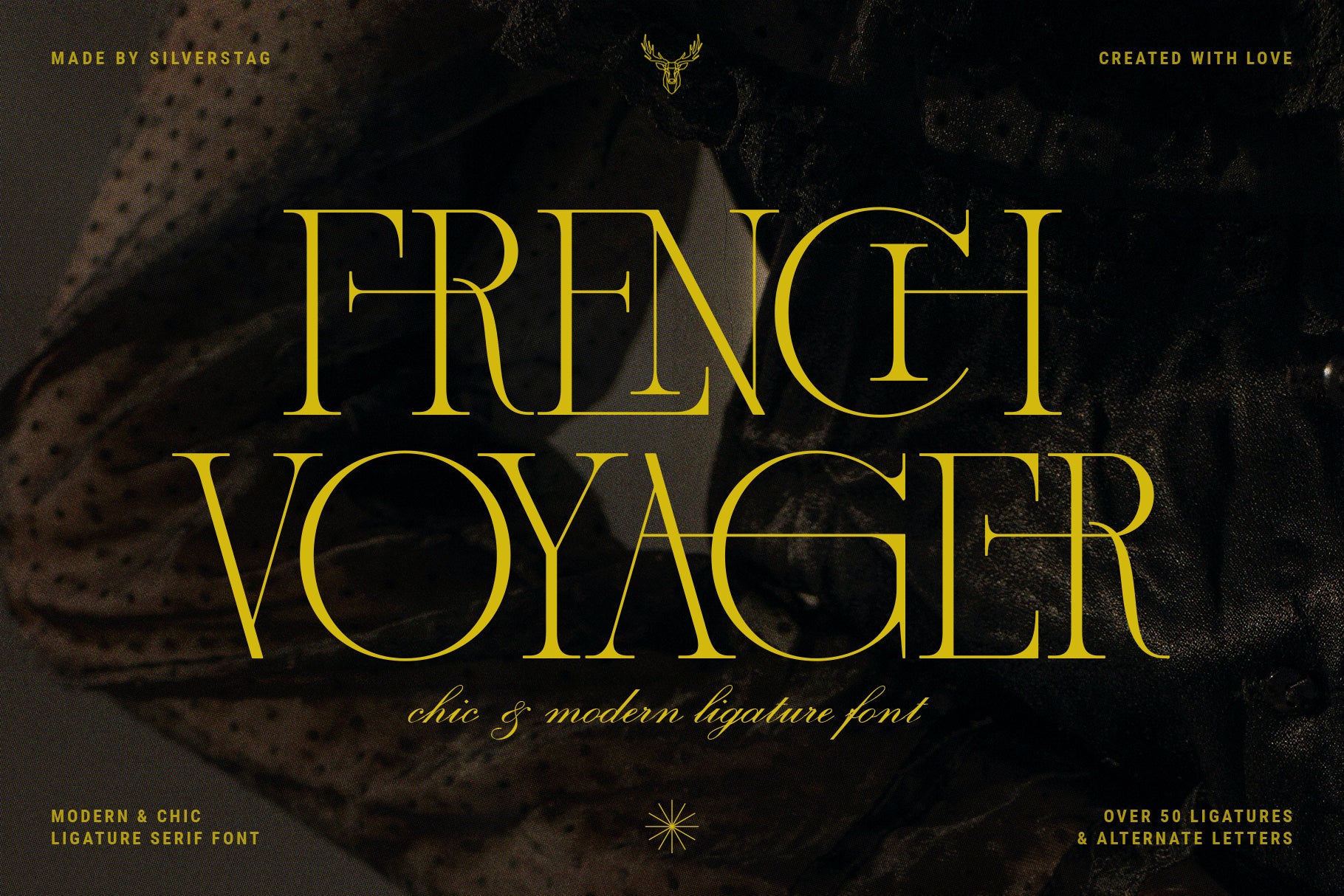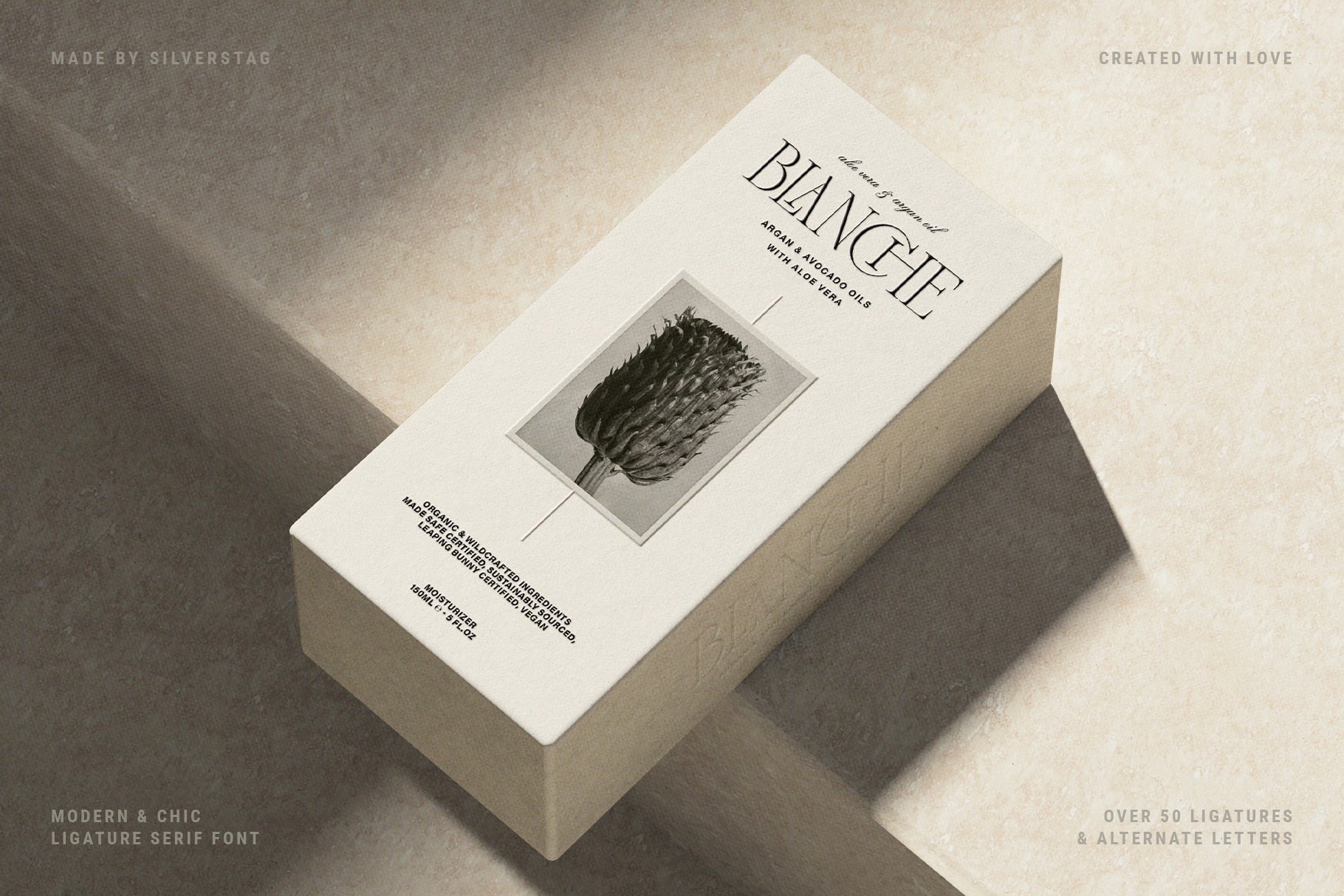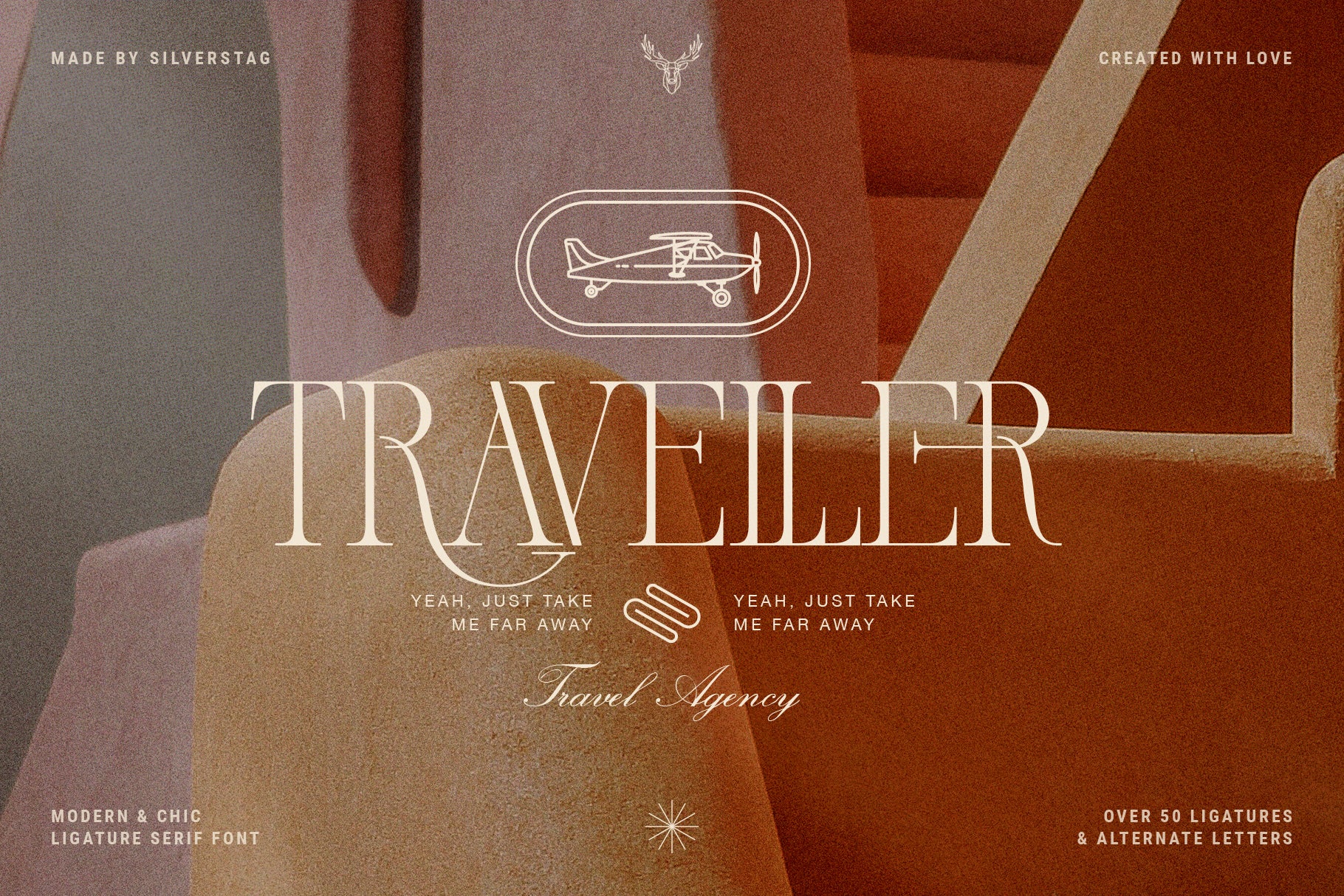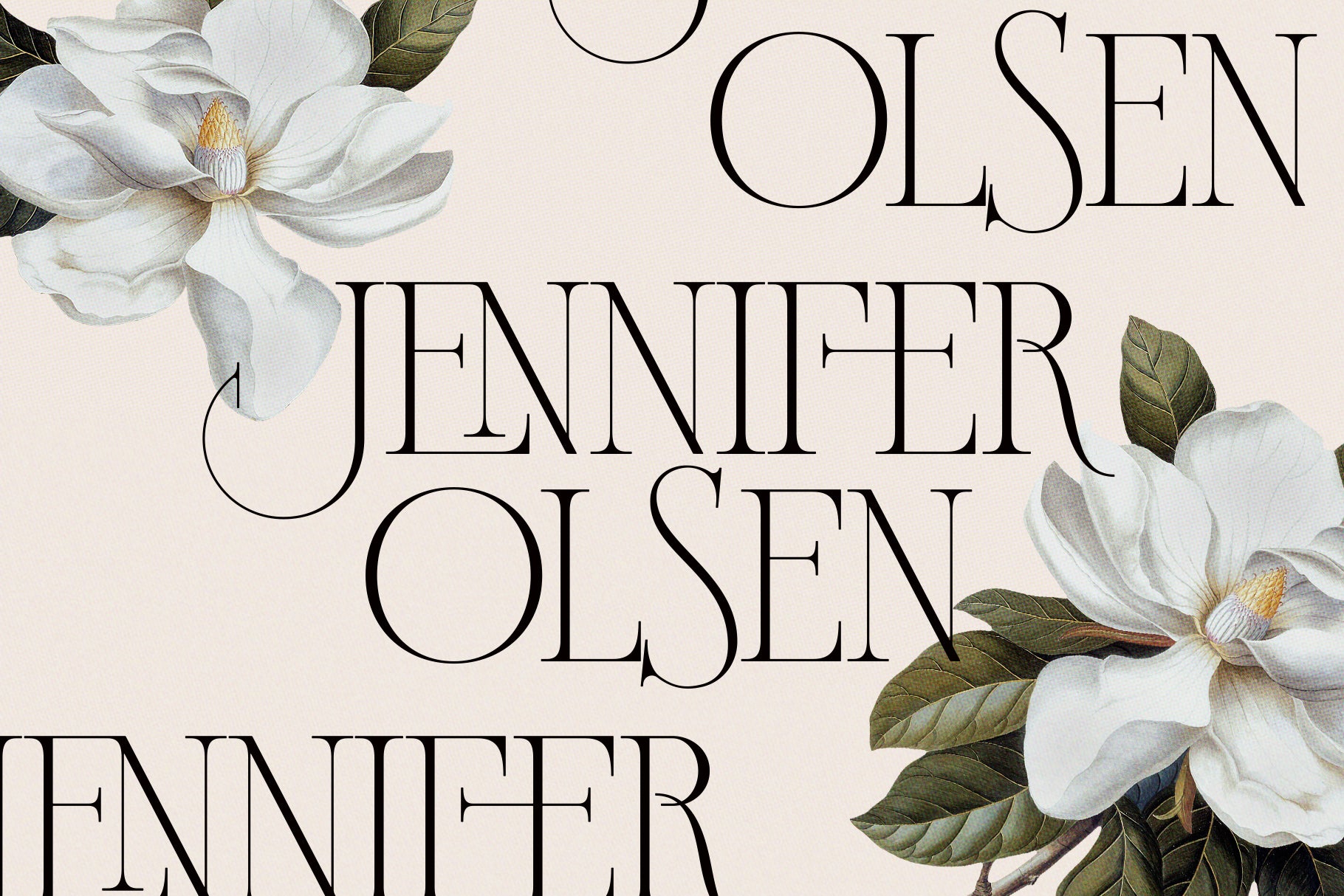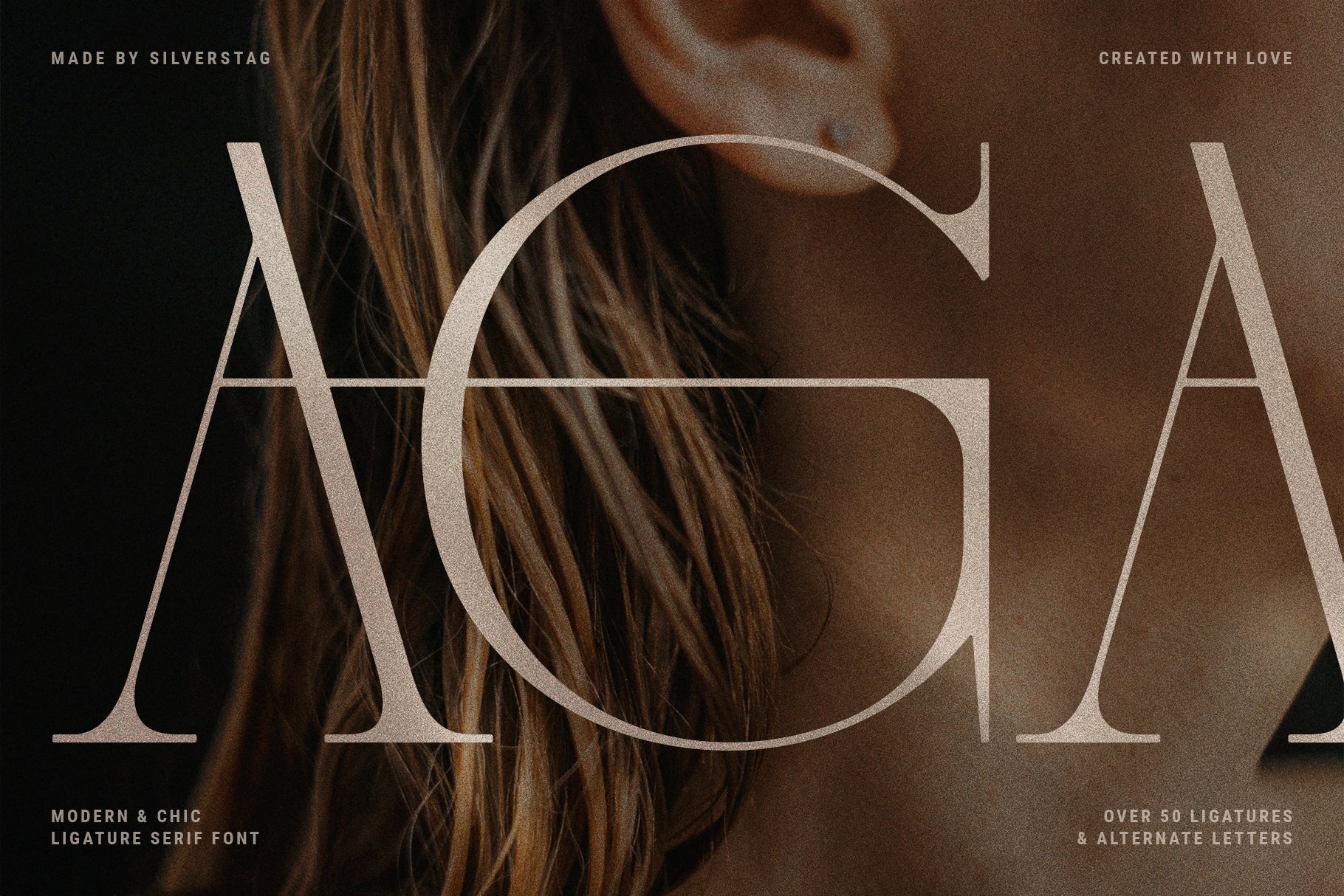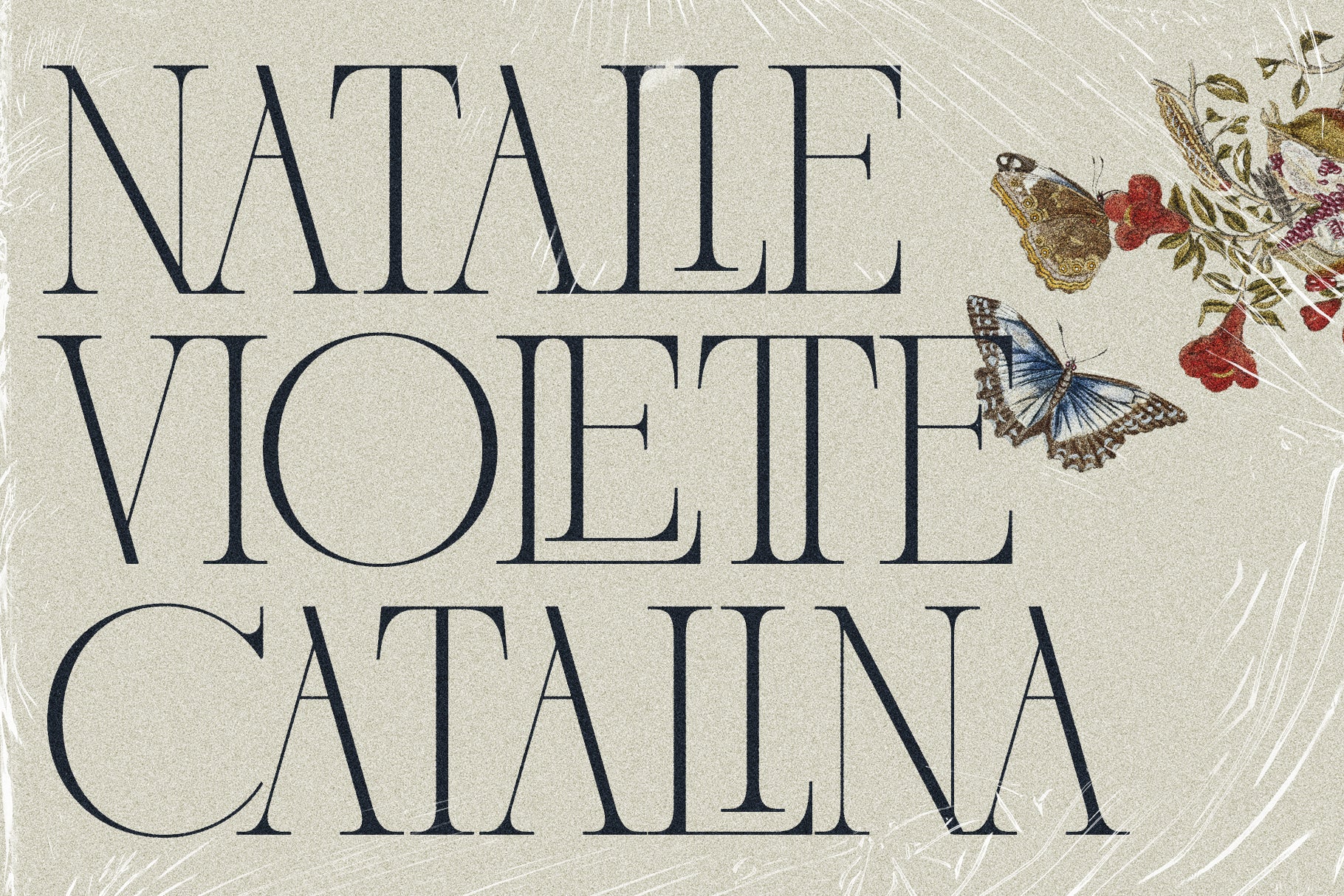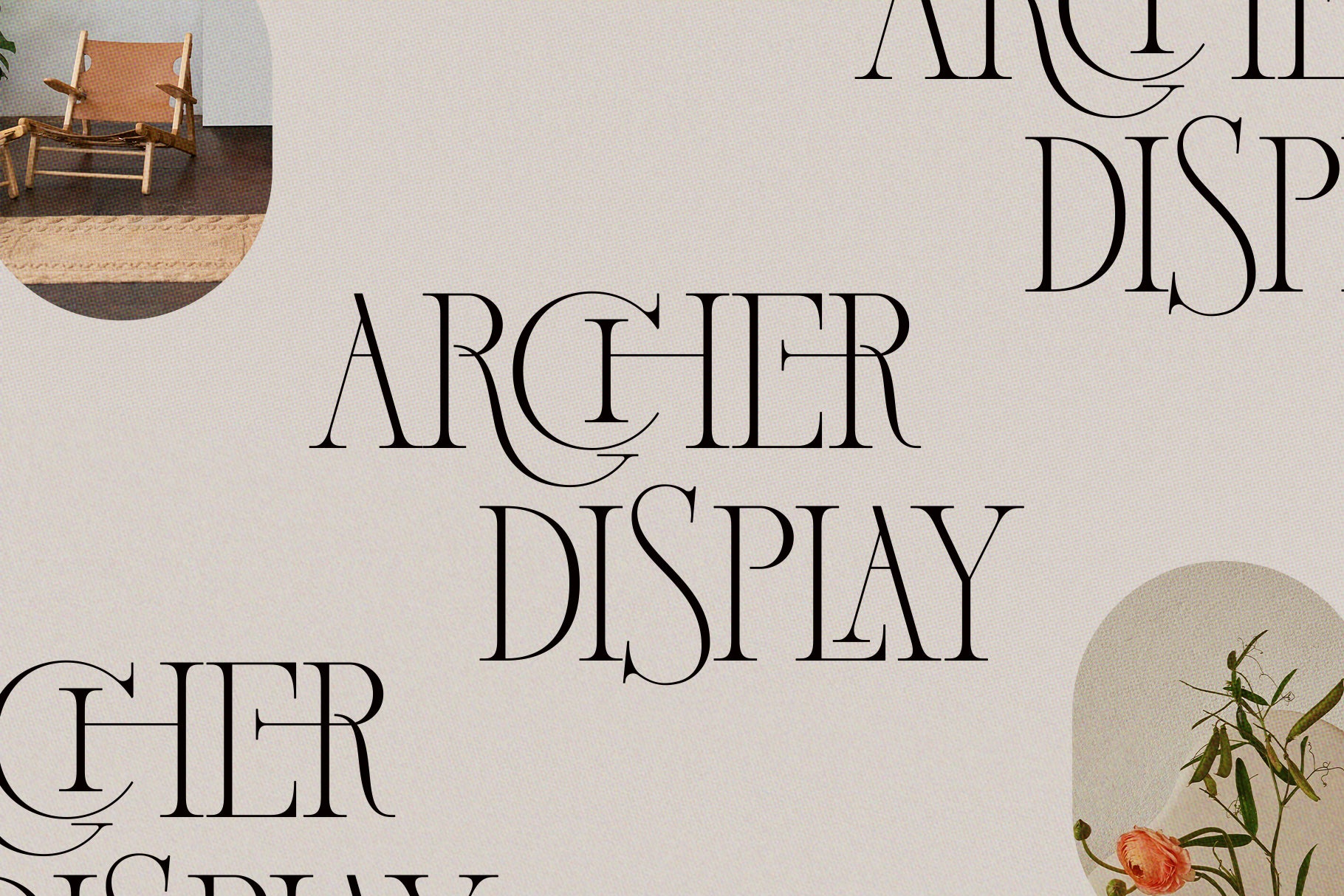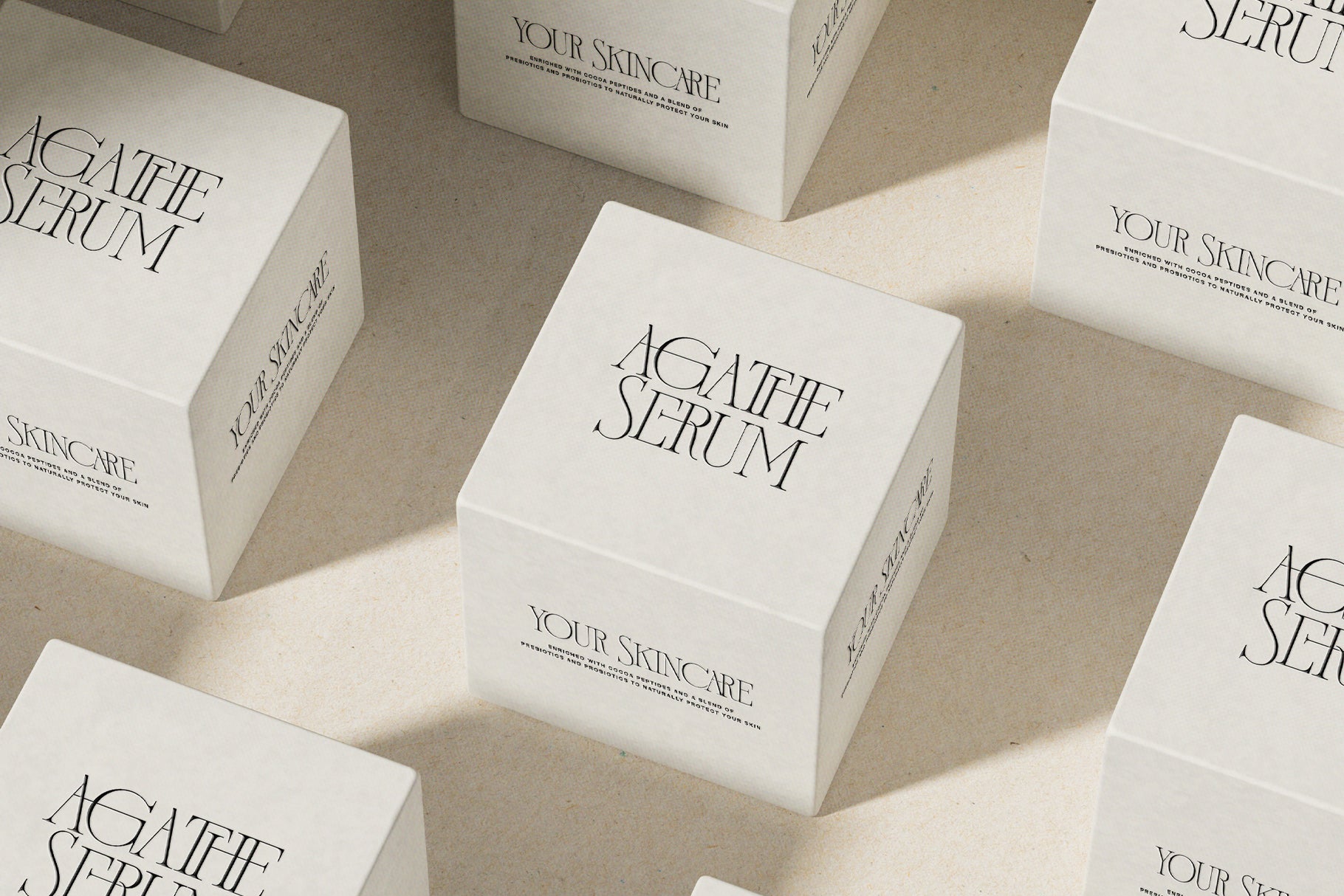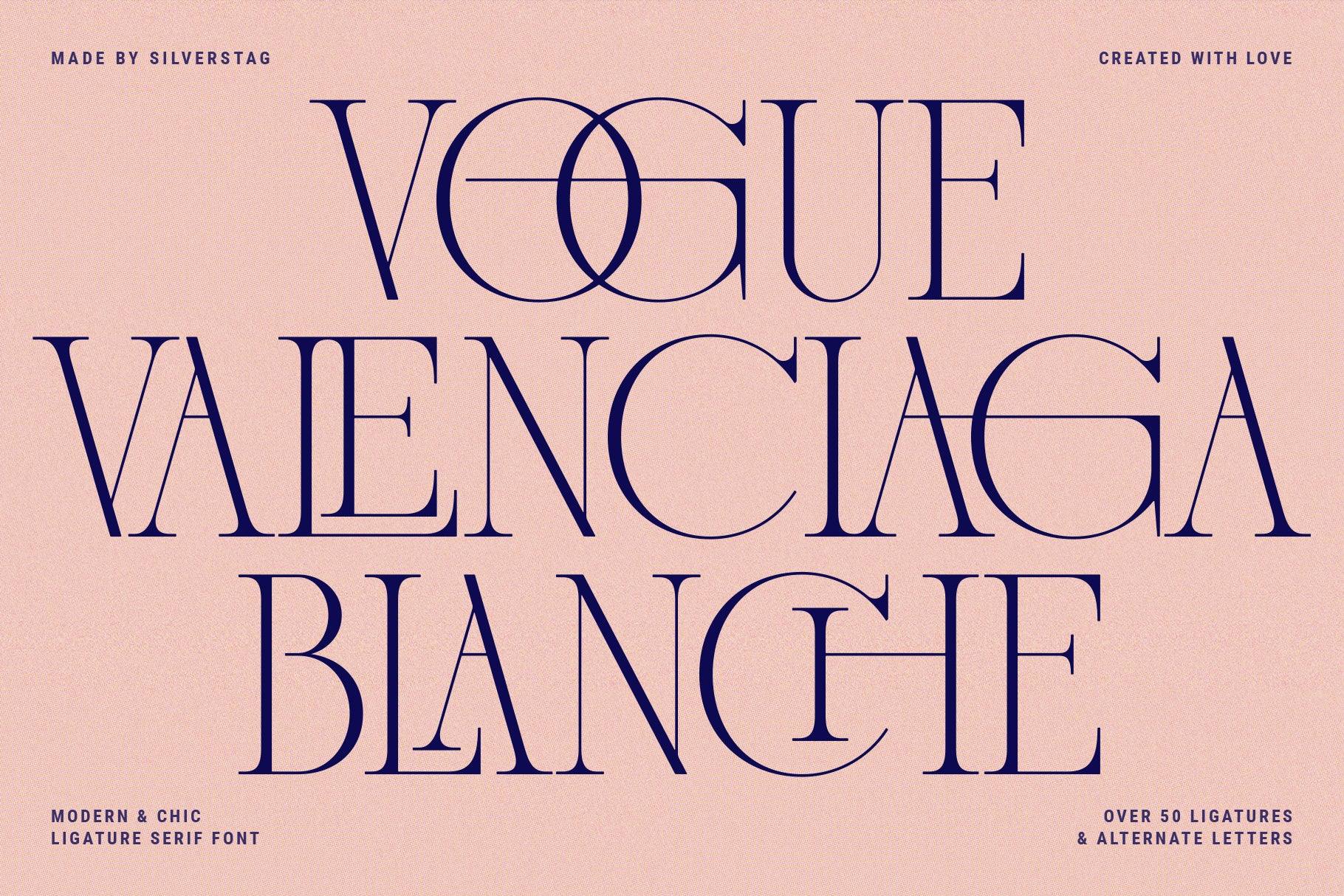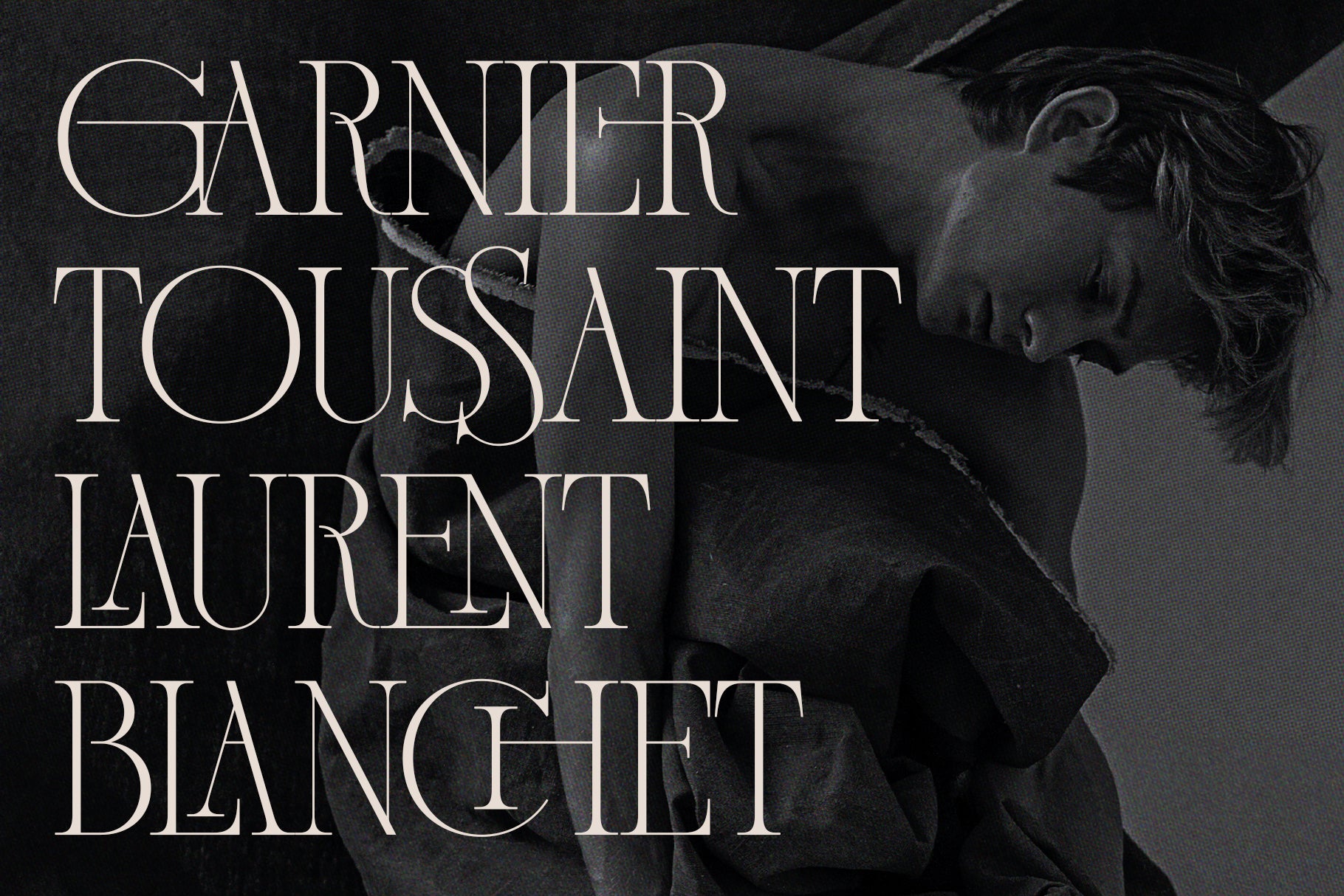
French Voyager - Chic Ligature Serif
French Voyager is a vintage-inspired serif typeface that blends nostalgia, elegance, and Art Deco charm into one beautifully crafted font. Designed to evoke the romance of a bygone era while remaining effortlessly modern, it’s perfect for logos, quotes, branding, website headlines, posters, newsletters, and more.
With 60+ elegant ligatures and alternate characters, French Voyager gives you the creative freedom to craft custom-looking typography with ease. Its soft curves, classic proportions, and stylish detailing make it the ideal serif for projects that demand sophistication and flair.
French Voyager Traveller travel agency mockup with an airplane badge over a warm seated figure
French Voyager cream AGA monogram over a dark photo of a long-haired woman
French Voyager Archer Display specimen over cream with a small leather chair and an orange poppy
French Voyager Vogue Valenciaga Blanche fashion name showcase in navy on blush
French Voyager Jack and Stacy wedding envelope stationery mockup fanned across the frame
French Voyager mirrored repeating Change specimen in slate over a peach ground
French Voyager Alegra repeated name showcase over a moody portrait of a woman with hands in her hair
French Voyager blind-embossed Hero letterforms on a pale grey ground with soft shadow
French Voyager The Lime candle packaging mockup on a soft beige plinth in warm light
French Voyager tilted what is in a name soliloquy specimen with a small floral sprig on cream
French Voyager Blanche cream box packaging mockup with a small framed thistle illustration
French Voyager Jennifer Olsen repeated name showcase over cream with white magnolia flowers
French Voyager name stack Natalie Violette Catalina over cream with vintage butterflies
French Voyager Agathe Serum skincare packaging mockup on scattered white boxes
French Voyager name stack Garnier Toussaint Laurent Blanchet over a black-and-white portrait of a man
French Voyager large cream TRUE letterforms over a Baroque painted ceiling fresco
French Voyager Voyage bespoke suites box packaging mockup on a soft surface
French Voyager specimen repeating the word Chicago in black on a pale cream ground
French Voyager Chelsea french menswear mockup over a black-and-white man with a bloom
French Voyager repeating Homesick specimen over dark charcoal with a small inset portrait